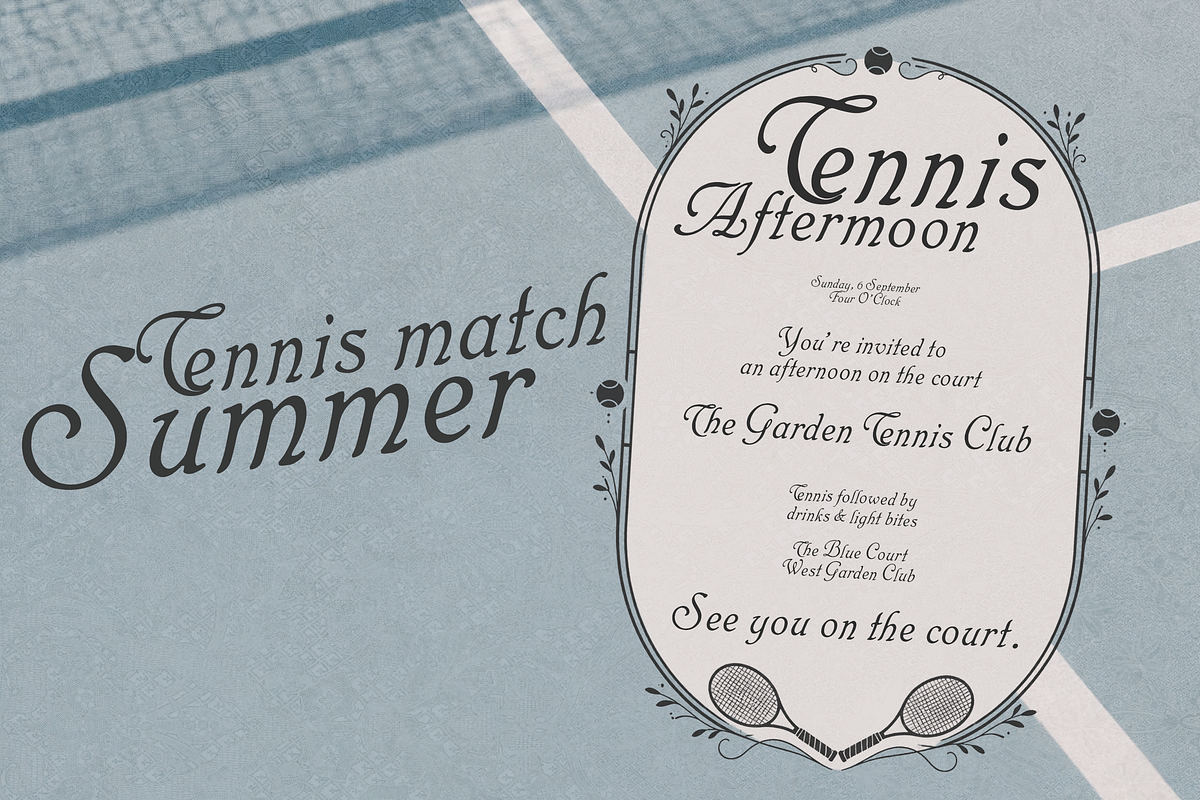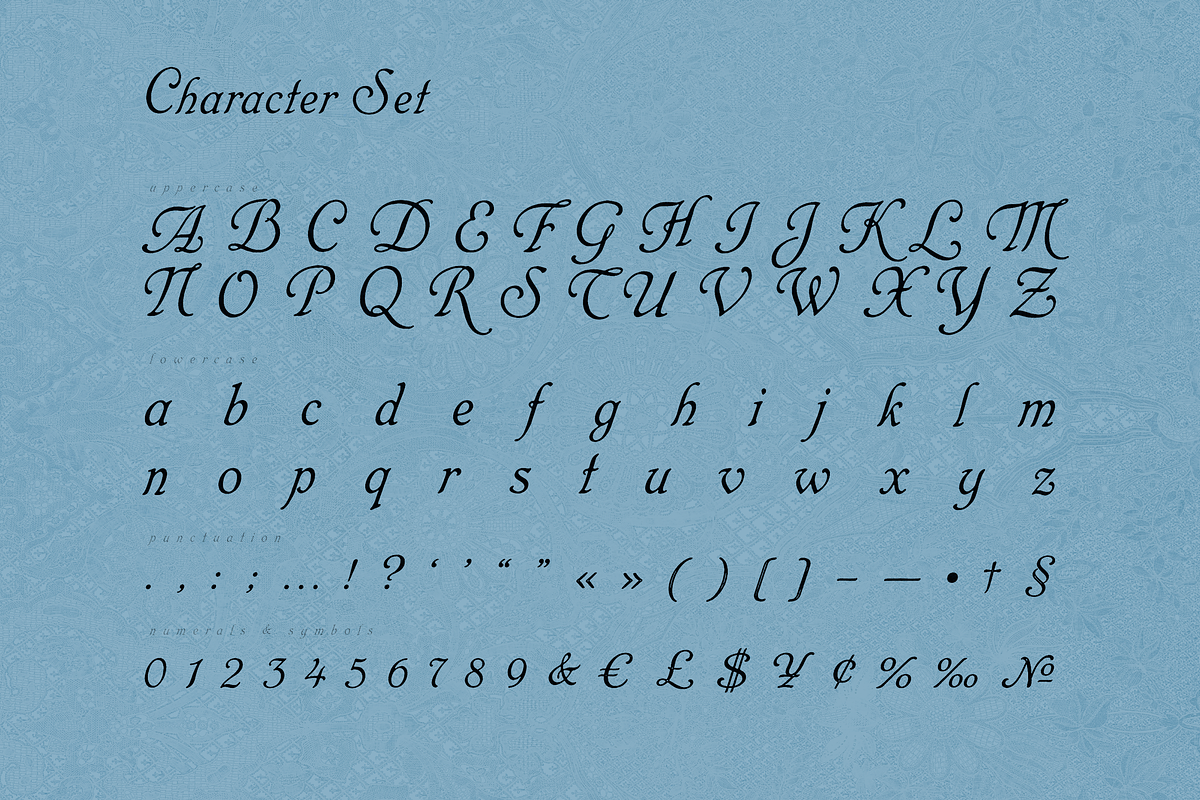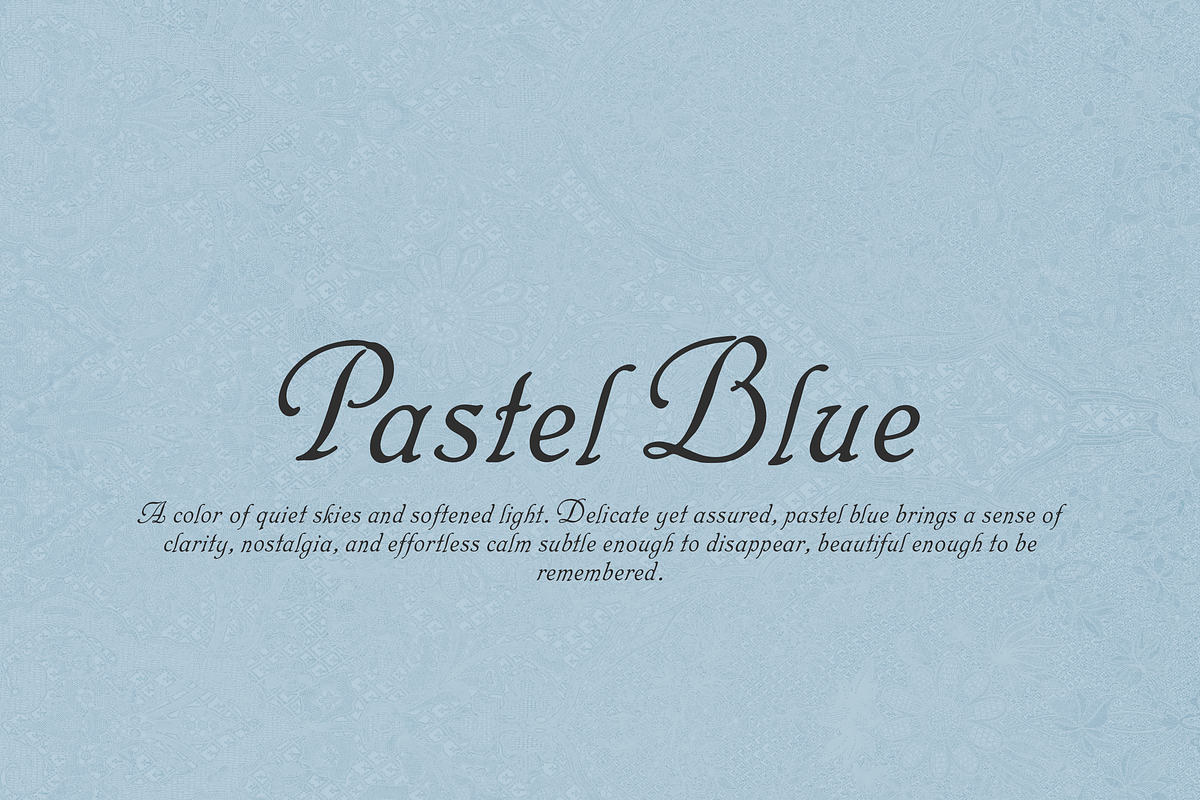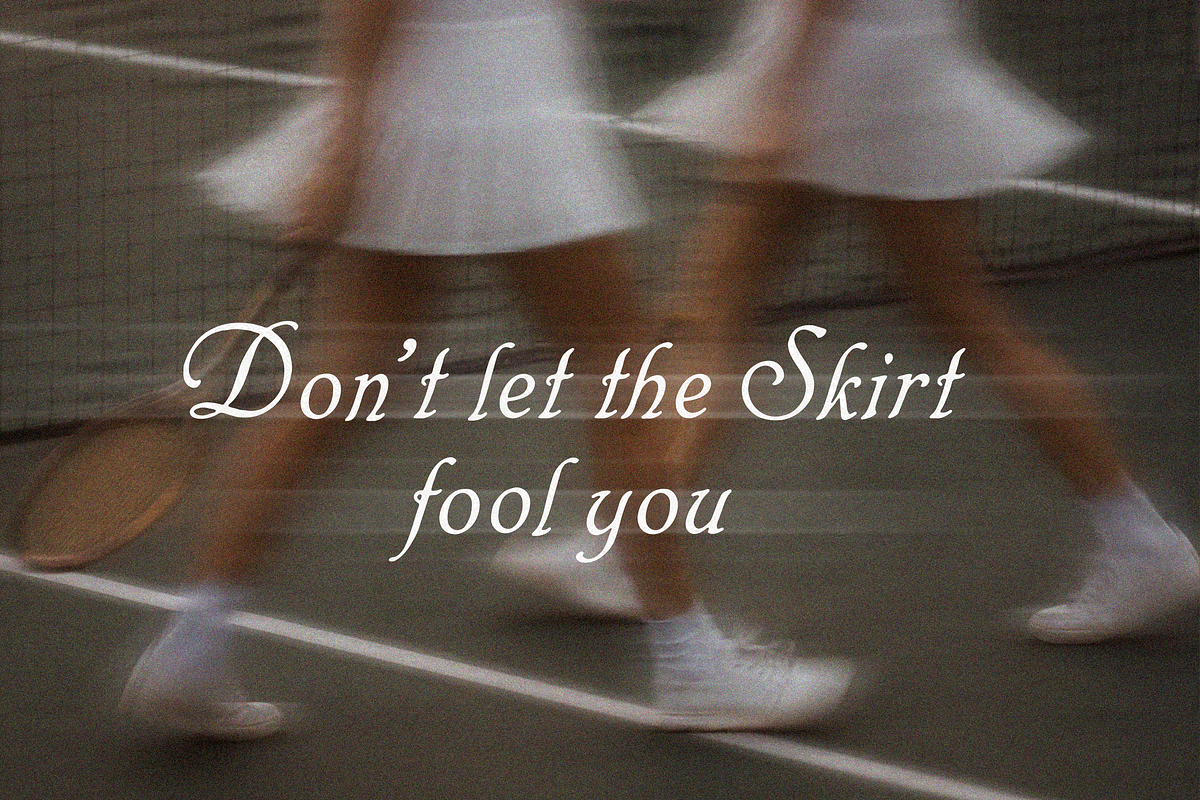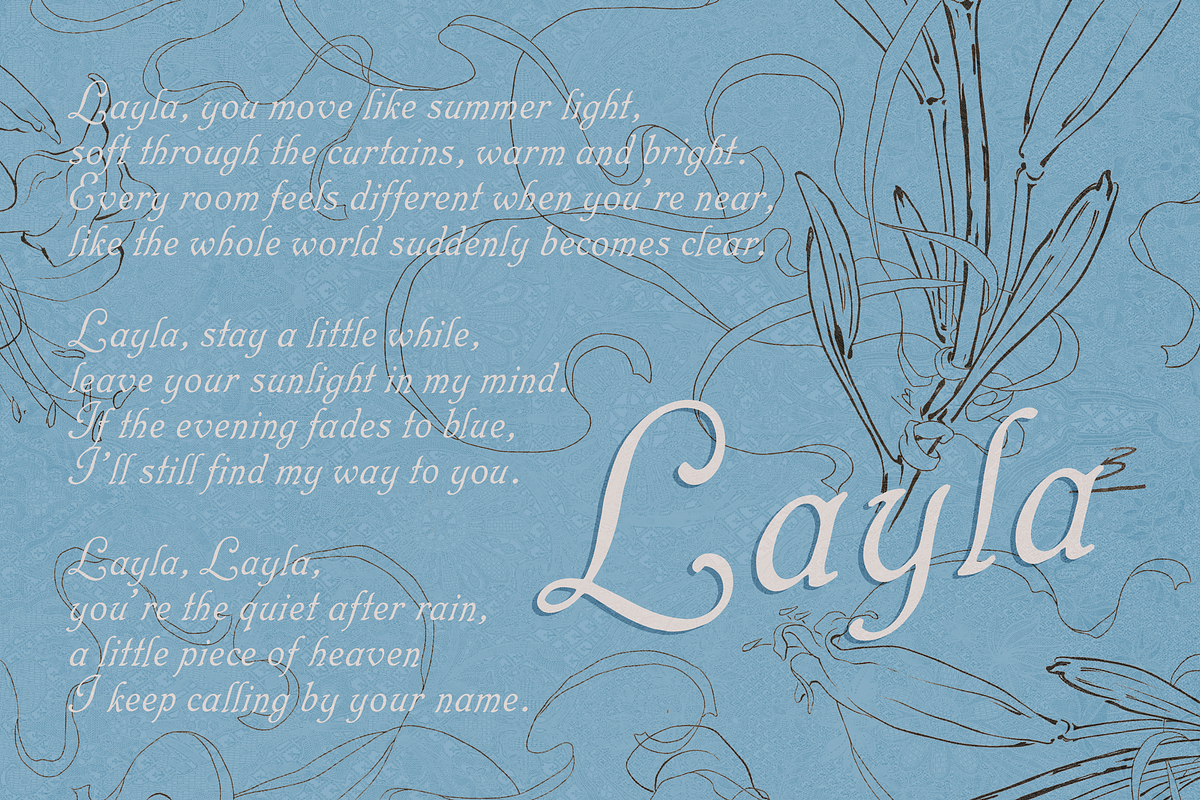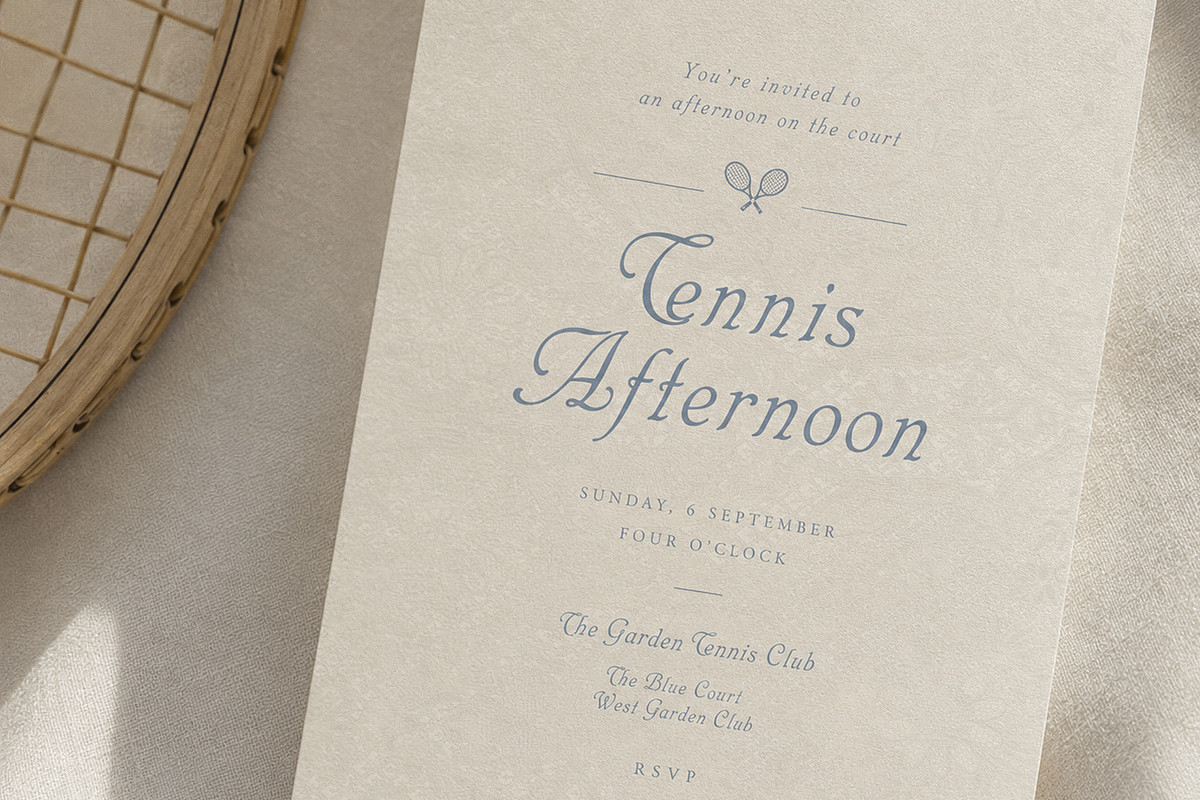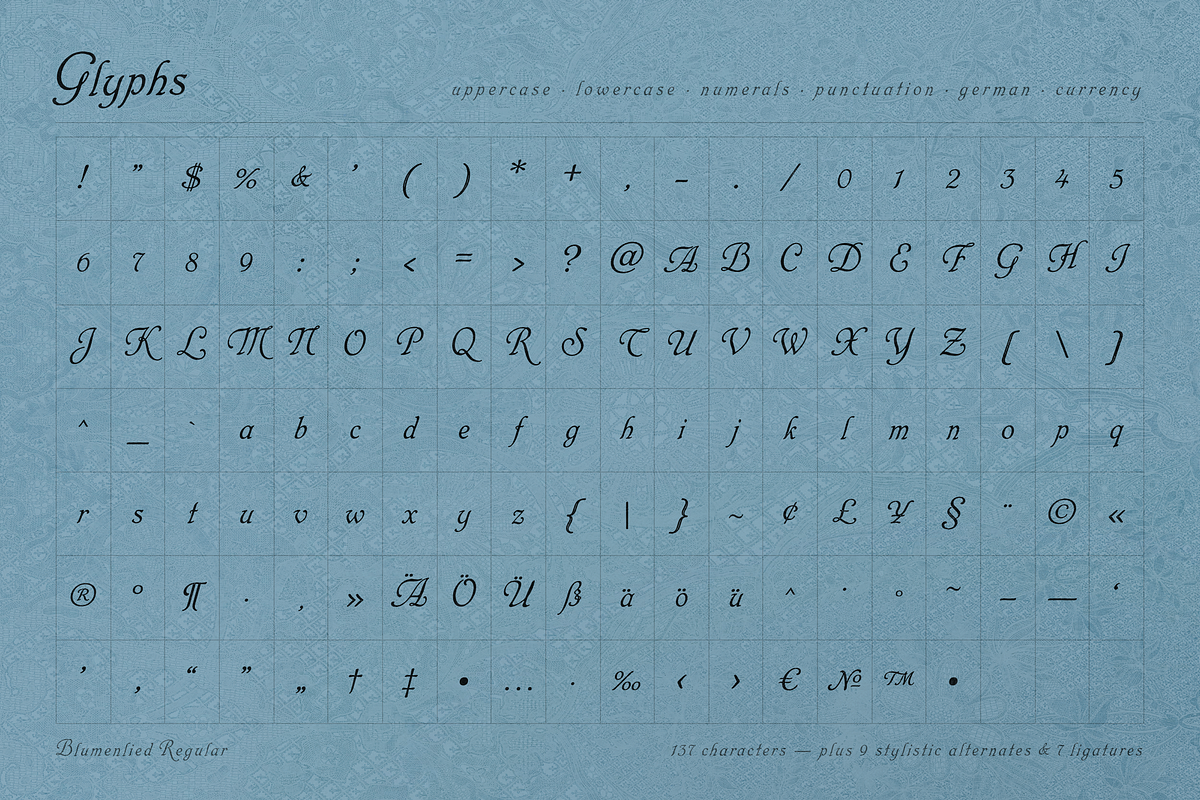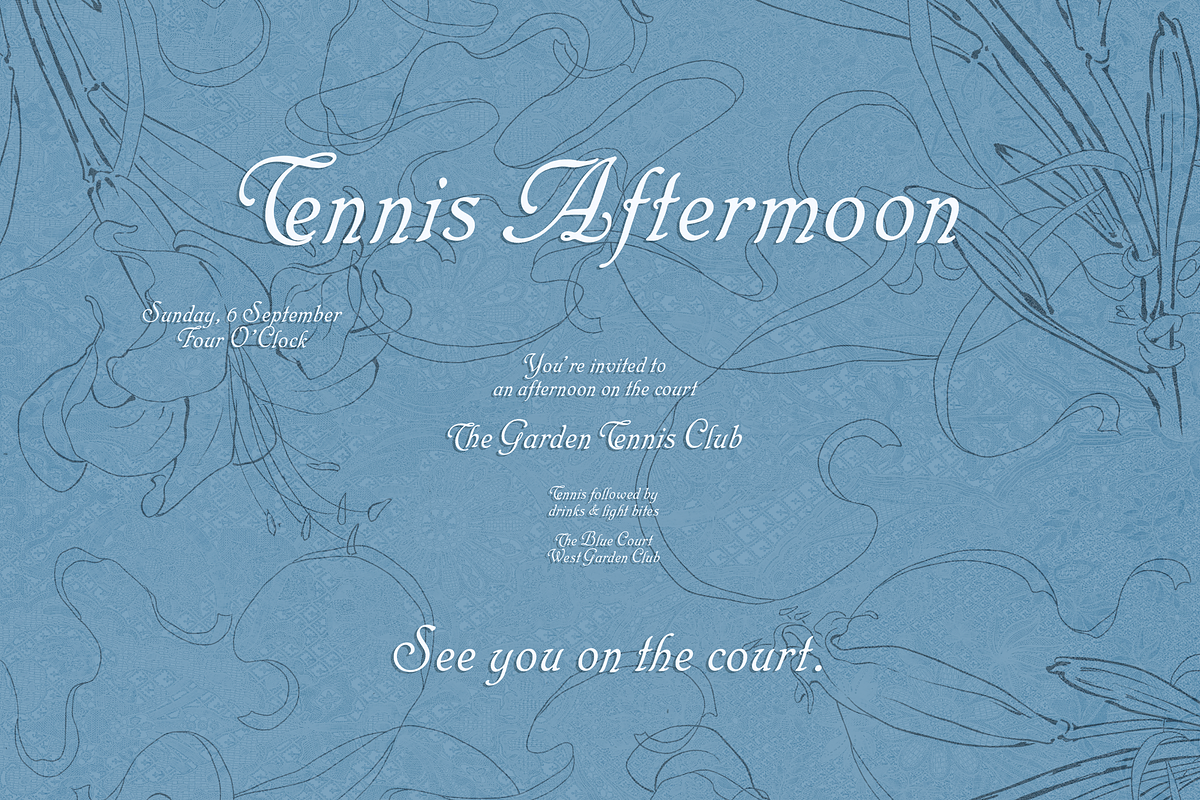
Blumenlied - Script
_ Blumenlied — Romantic Calligraphy Font _
Blumenlied is a romantic calligraphy typeface inspired by old letters, botanical books, quiet afternoons, and the kind of beautiful typography that feels like it belongs on something you want to keep.
Its name means “flower song” in German, which felt right for a typeface that is delicate, expressive, and slightly nostalgic. The letters have a graceful handwritten rhythm, with slender lowercase forms and more decorative capitals that give words a little drama without making them feel overly ornate.
I designed Blumenlied for projects that need softness and character rather than something perfectly polished or modern. It works beautifully for wedding stationery, invitations, poetry, book covers, editorials, perfume and beauty branding, packaging, menus, romantic posters, stationery, and thoughtful little details throughout a brand.
I especially love using it large, where the unusual curves of the capitals can really be seen, but the lowercase has a quieter quality that also works beautifully for longer lines of text.
Blumenlied includes:
Uppercase A–Z
Lowercase a–z
Numerals 0–9
Punctuation & symbols
Currency symbols
German characters
137 characters
Blumenlied - a little flower song, written in letters.